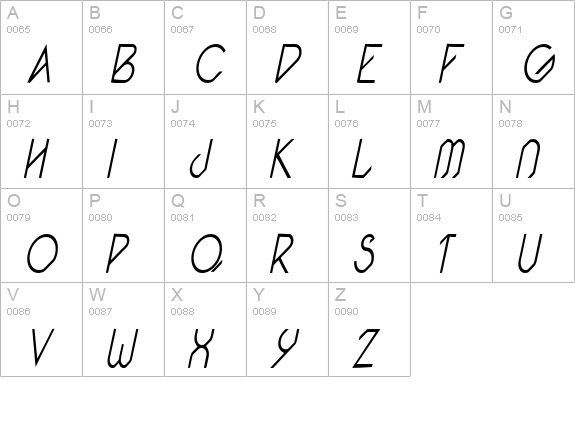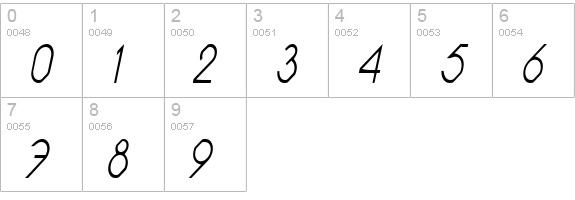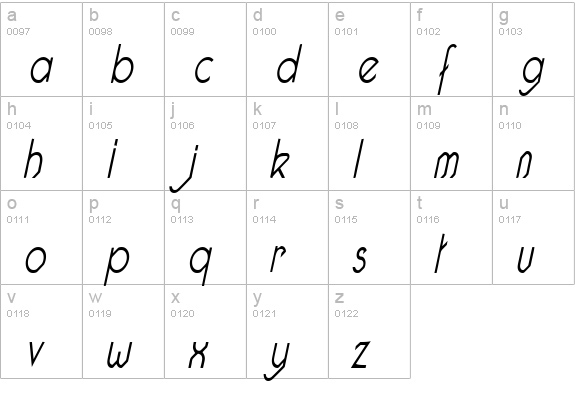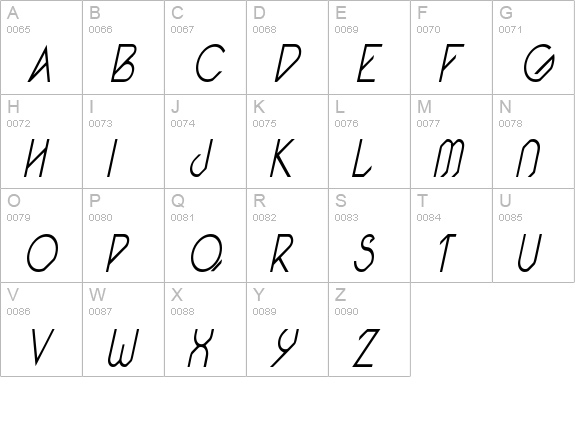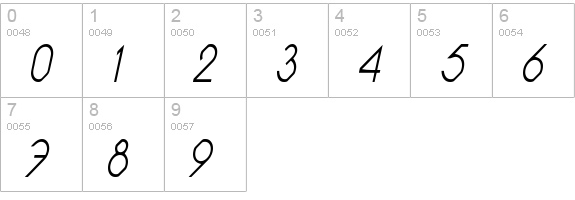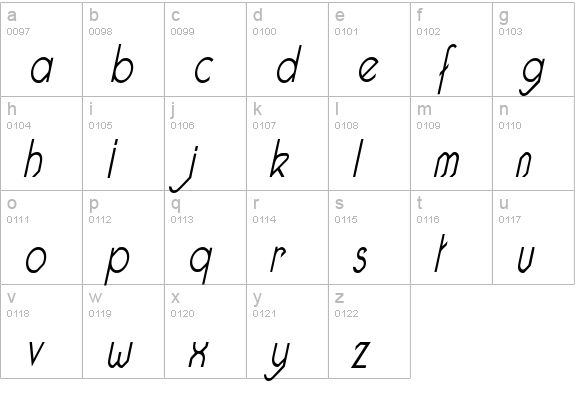
Pacotillenarrowlight ital Font Details
Pacotillenarrowlight ital font is a modern and elegant typeface that exudes sophistication and style. Its sleek design and slender letterforms make it perfect for adding a touch of class to any project. With its italic style, Pacotillenarrowlight ital font brings a sense of movement and fluidity to your text, creating a dynamic and engaging visual experience. The best part? Pacotillenarrowlight ital font is completely free to download at FontsMarket.com. This means you can easily enhance your designs without breaking the bank. Whether you're working on a branding project, a website design, or any other creative endeavor, Pacotillenarrowlight ital font is sure to elevate your work to the next level. Don't miss out on this fantastic opportunity to access a high-quality font for free. Download Pacotillenarrowlight ital font today and start creating stunning designs that captivate and inspire!